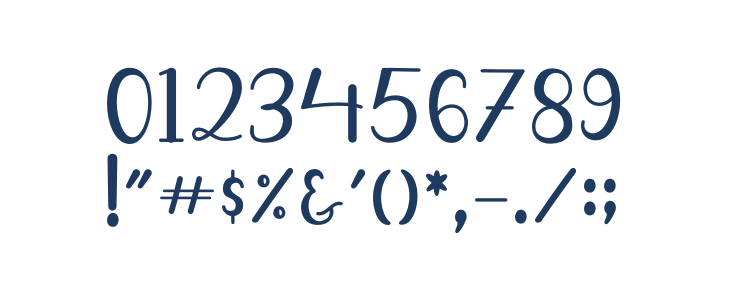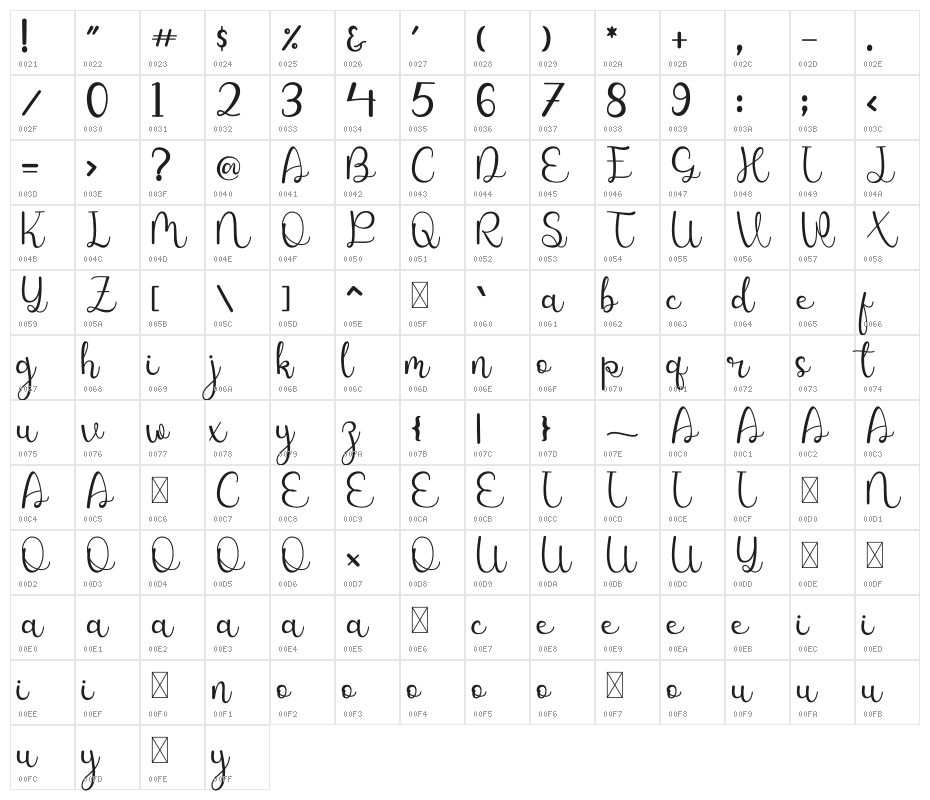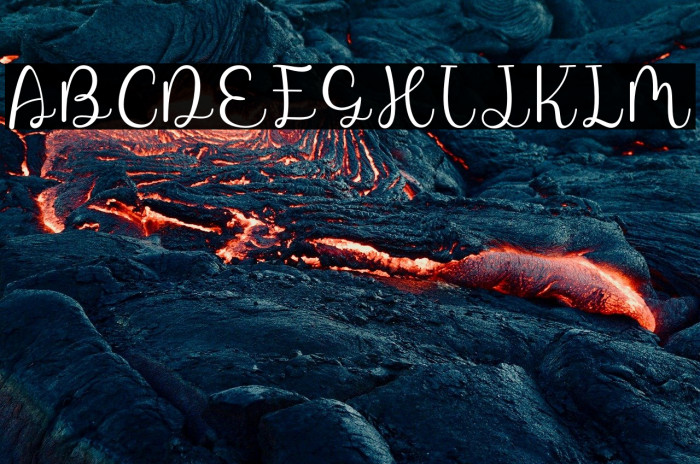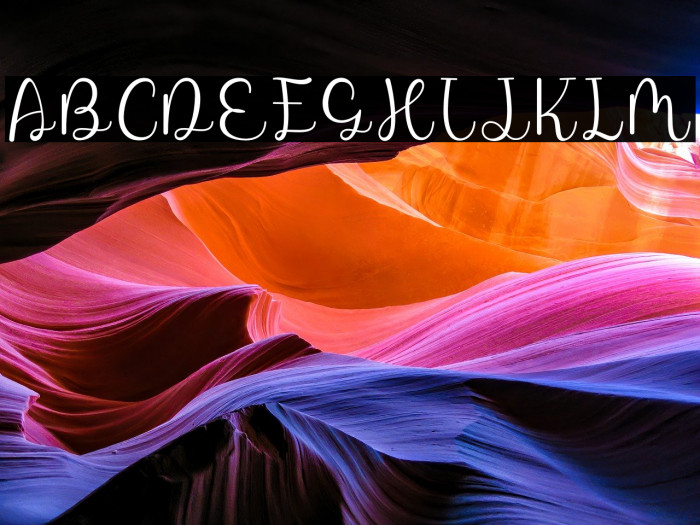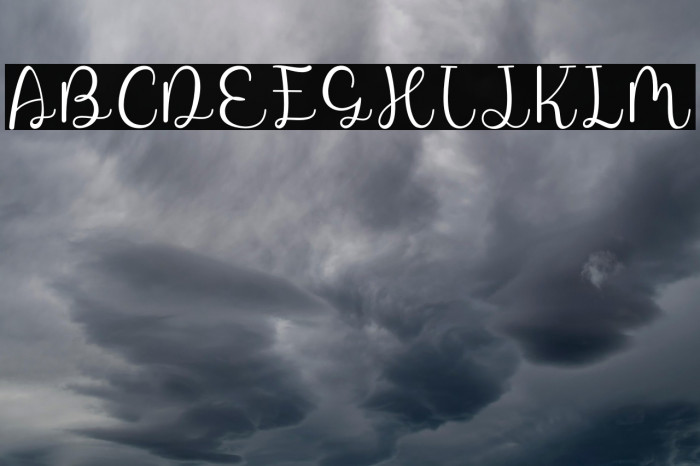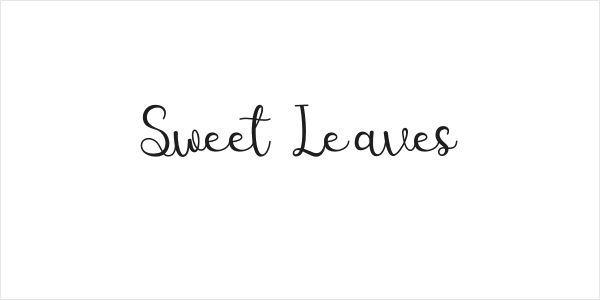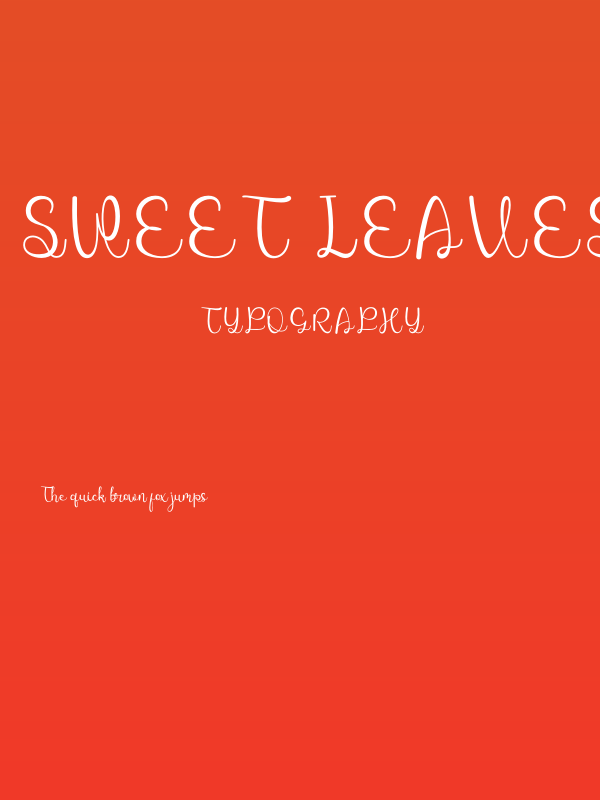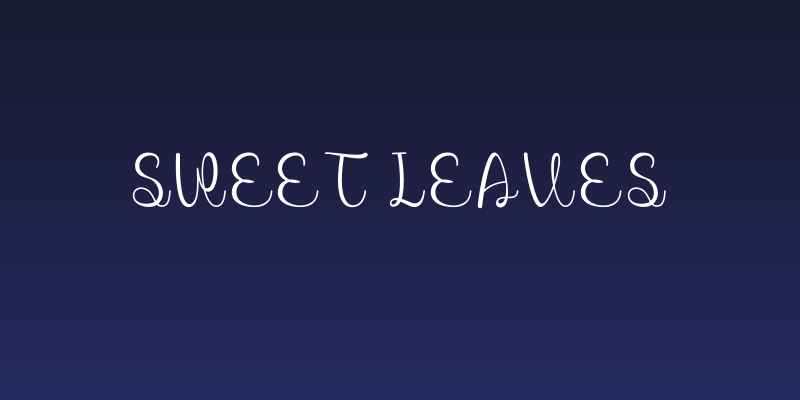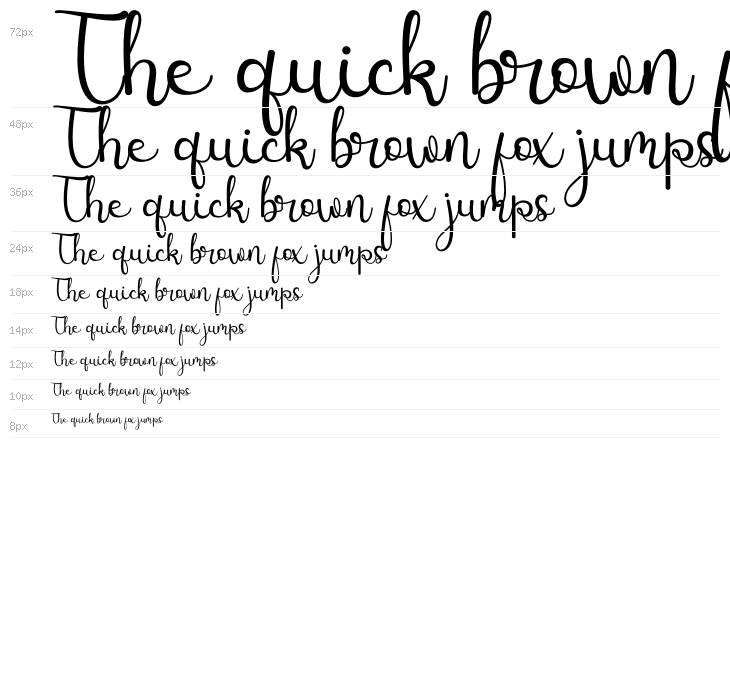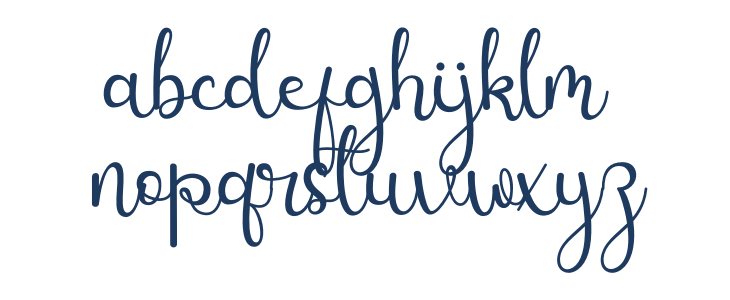
Sweet Leaves Font
Sweet Leaves Description
This font features a playful and whimsical script style, characterized by its flowing, interconnected letters. The uppercase letters are distinct with a slight curl at the ends, while the lowercase letters exhibit a more pronounced loop and flourish, adding to the font's charm. The numerals are rounded and maintain the playful aesthetic, making them easily readable yet stylish. Special characters are designed to complement the overall look, ensuring consistency across all glyphs. This font's unique style is perfect for adding a personal touch to any project.